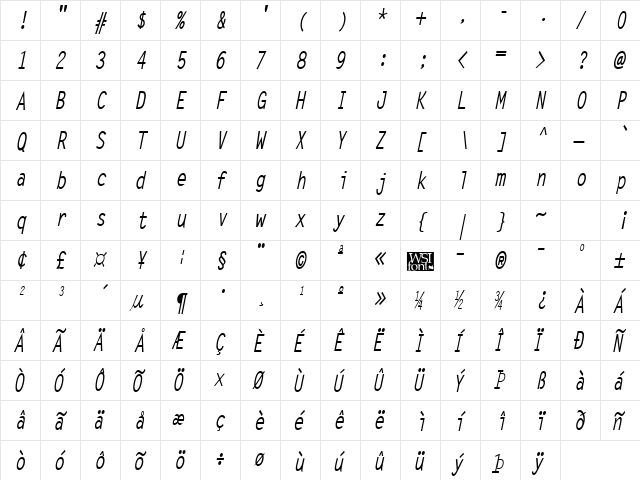
LetterGothicCond Bold Italic Font Preview
Design Context for LetterGothicCond Typeface
LetterGothicCond has the quiet confidence of well-executed sans-serif typography: versatile, unobtrusive, and dependable at any size. The dynamic lean of this cut emphasises speed and emphasis in any layout. The heavy weight commands attention and anchors typographic hierarchies. Its narrow stance lets it pack a punch even in space-constrained designs.
Well-suited to navigation labels, product packaging, and anywhere legibility at scale is essential.
Font Pairing: Use LetterGothicCond for headlines alongside a lighter-weight sans or serif for body copy to establish clear visual hierarchy.
Pro Tip: Use LetterGothicCond tightly set in headlines and banners — its condensed proportions make it ideal for maximum impact in minimum horizontal space.